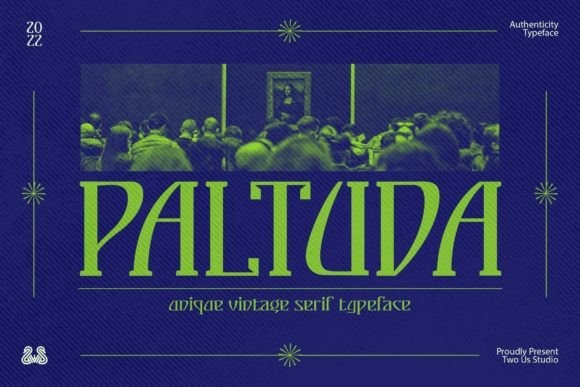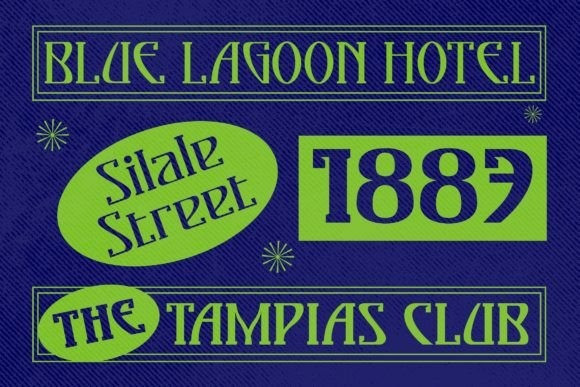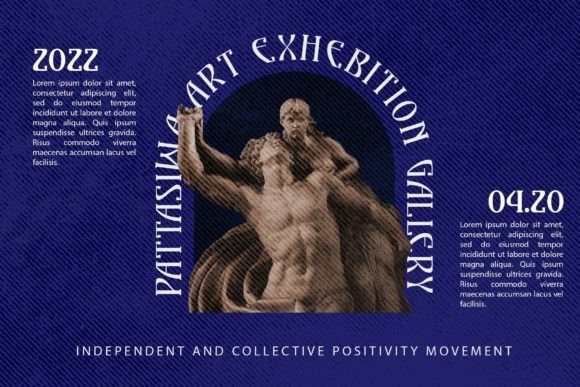
Paltuda Font
Paltuda is a unique and vintage serif family font. This minimalist and decorative font can easily become your favorite. It can be used for books, magazines, social media posts, invitations, and so much more! So add this to your creations and take your designs to the next level!